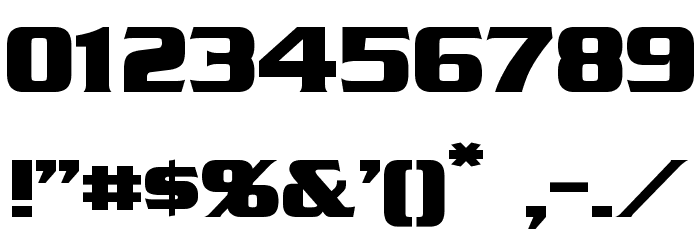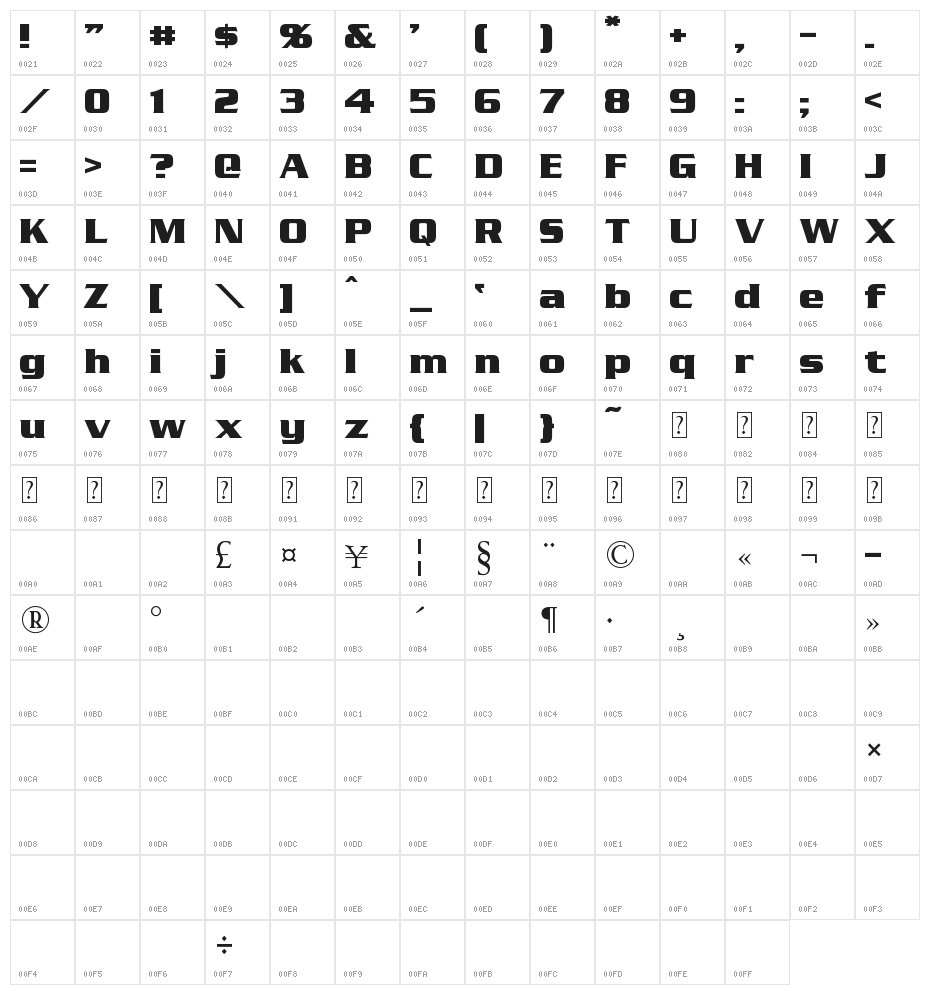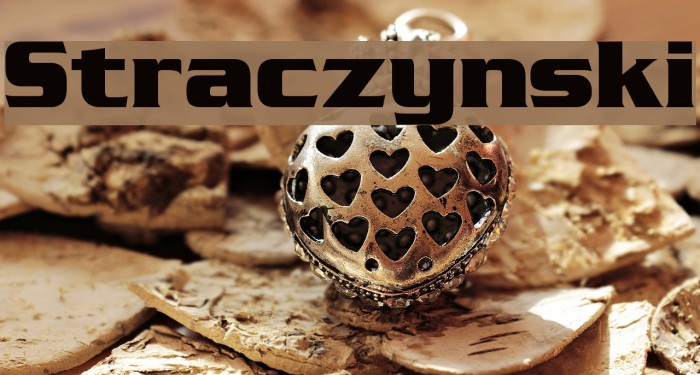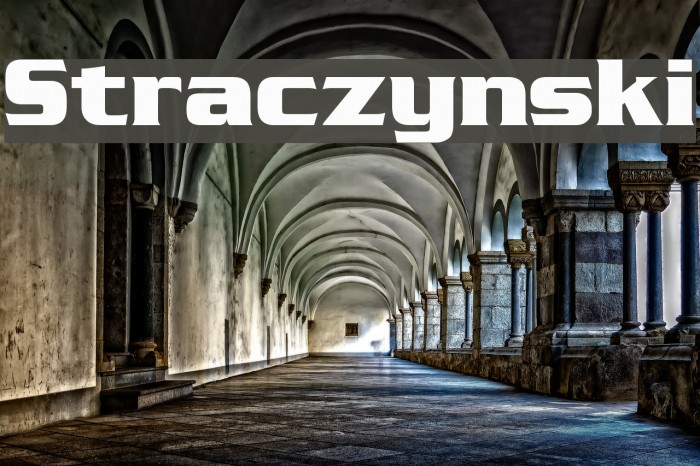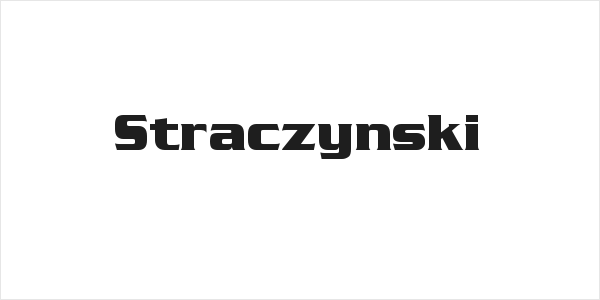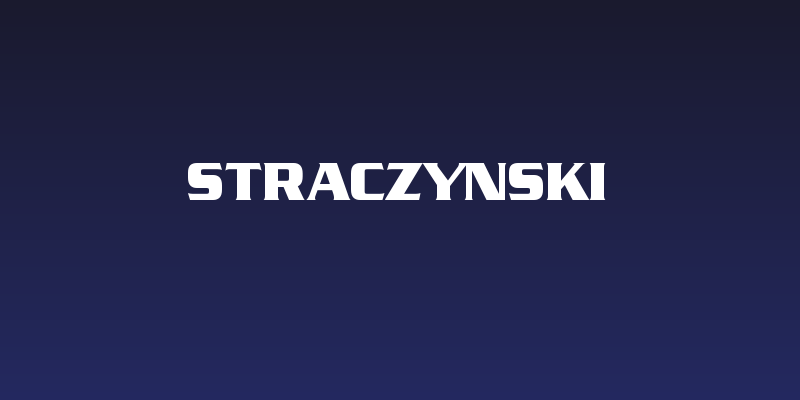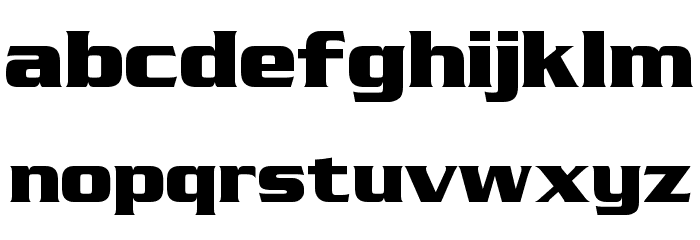
Straczynski Font
Straczynski Description
This font features a bold and assertive design with strong geometric shapes and a modern aesthetic. The uppercase letters are particularly striking, with sharp angles and a solid presence. The lowercase letters maintain a consistent style, offering a balanced look that complements the uppercase. The numerals are robust and clear, making them highly legible. Special characters are designed to match the overall boldness, ensuring a cohesive appearance across all text. The font's design is ideal for making a strong visual impact.
| Proposed Projects | Ideal for branding, headlines, posters, and any project requiring a strong visual impact. |